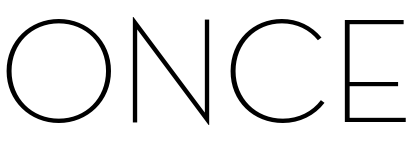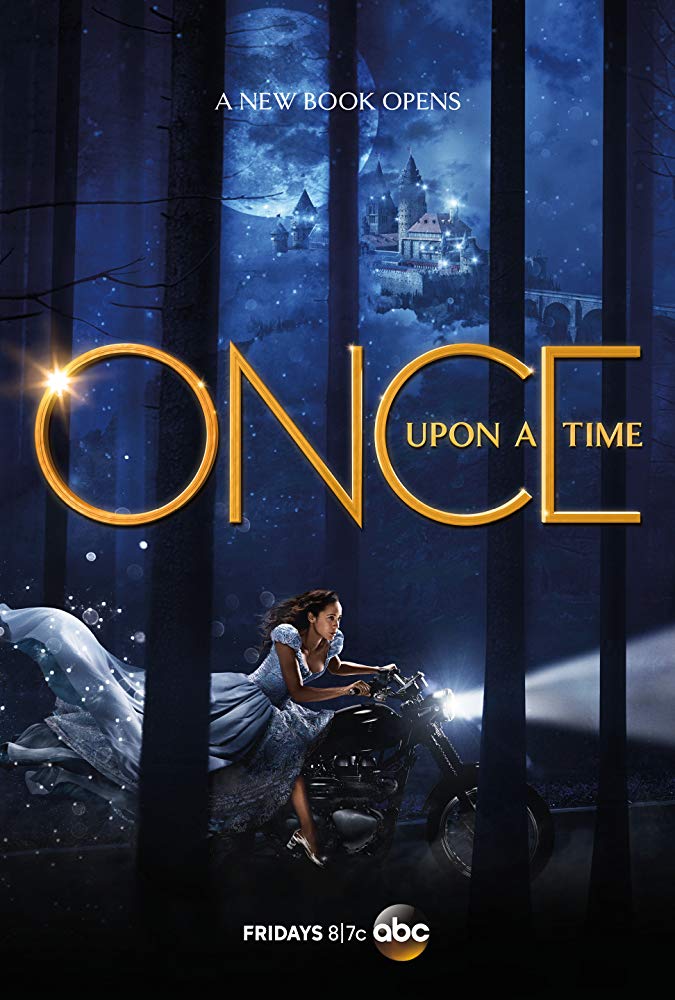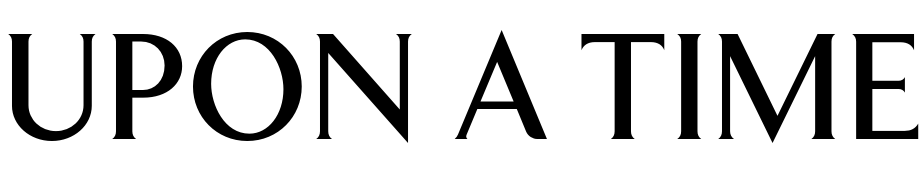
Once Upon a Time (TV series) Font
DramaOnce Upon a Time is a fantasy drama series that ran from 2011-2018, blending fairy tale characters with contemporary elements, following Emma's quest to save her son and Storybrooke from the Evil Queen's curse.
The title of the TV series features two fonts; the "ONCE" in the title appears to be based on Neutraface Display Light from House Industries, and the small serif font used for "upon a time" is similar to Clarice Medium from Garage Fonts.